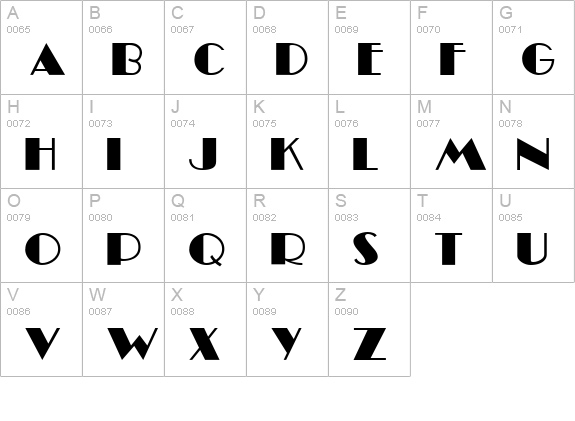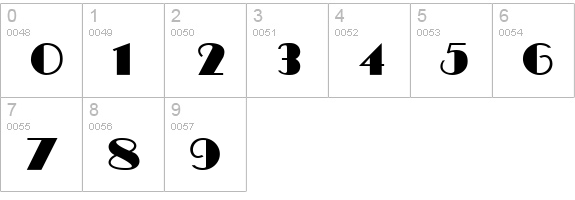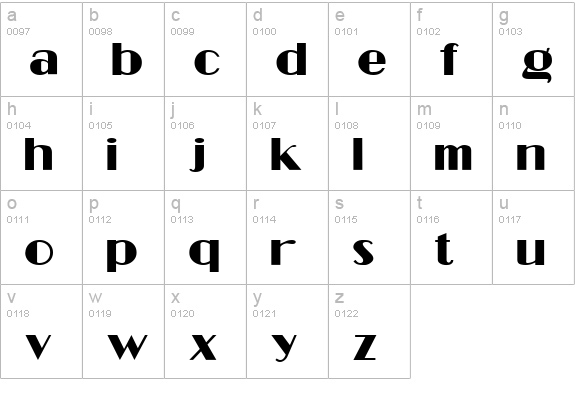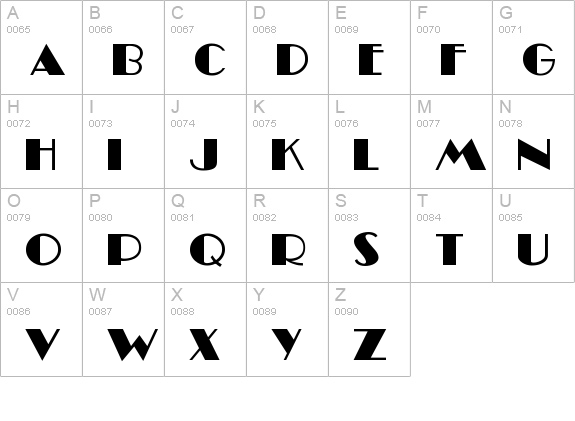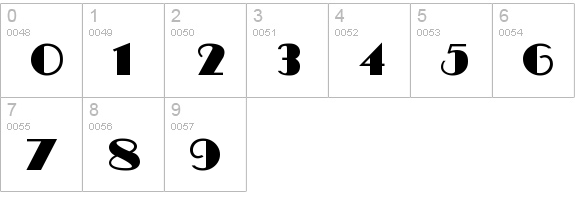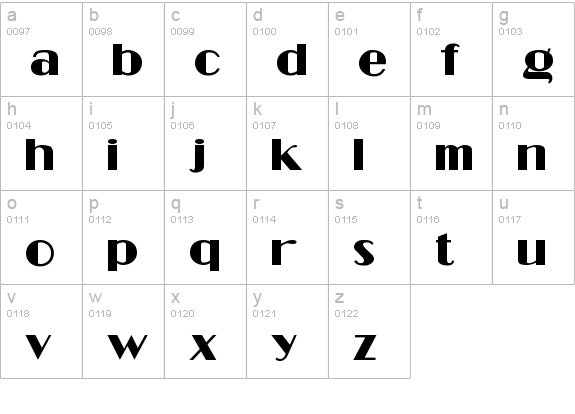
MiamiBeach Light Font Details
MiamiBeach Light is a refined, elegant variant in the MiamiBeach typeface family \xE2\x80\x94 well suited to elegant body text, refined sub-headings, and luxury branding.
MiamiBeach Light font is a modern and elegant typeface that exudes sophistication and style. With its sleek lines and clean design, this font is perfect for adding a touch of class to any project. Whether you're designing a logo, creating a poster, or crafting a website, MiamiBeach Light font will make your text stand out. And the best part? MiamiBeach Light font is completely free to download at FontsMarket.com. That's right, you can get your hands on this beautiful font at no cost at all. So why wait? Add MiamiBeach Light font to your font collection today and elevate your design projects to the next level.